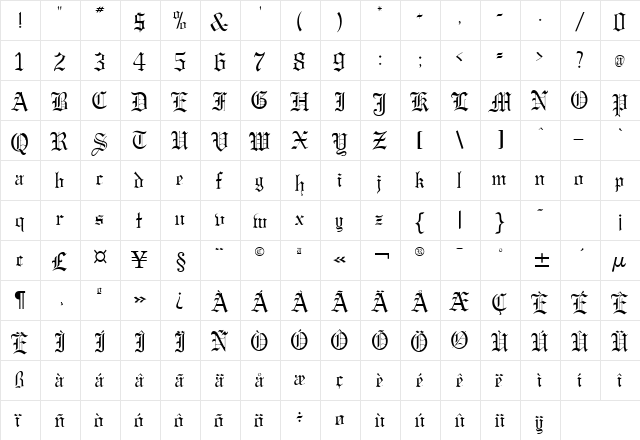
Gregory Wide Normal
Design Context for Gregory Wide Typeface
Gregory Wide is a composed and adaptable typeface that performs quietly and consistently across a wide range of design contexts.